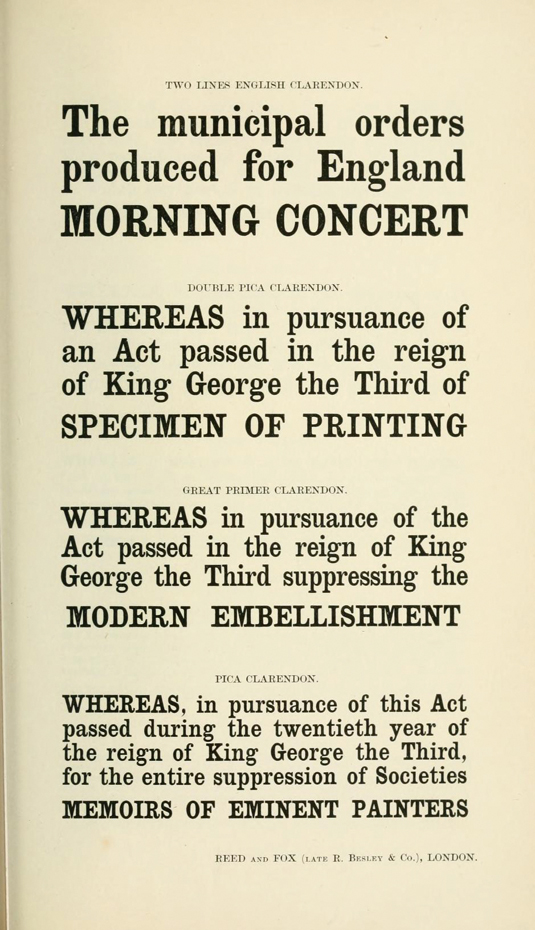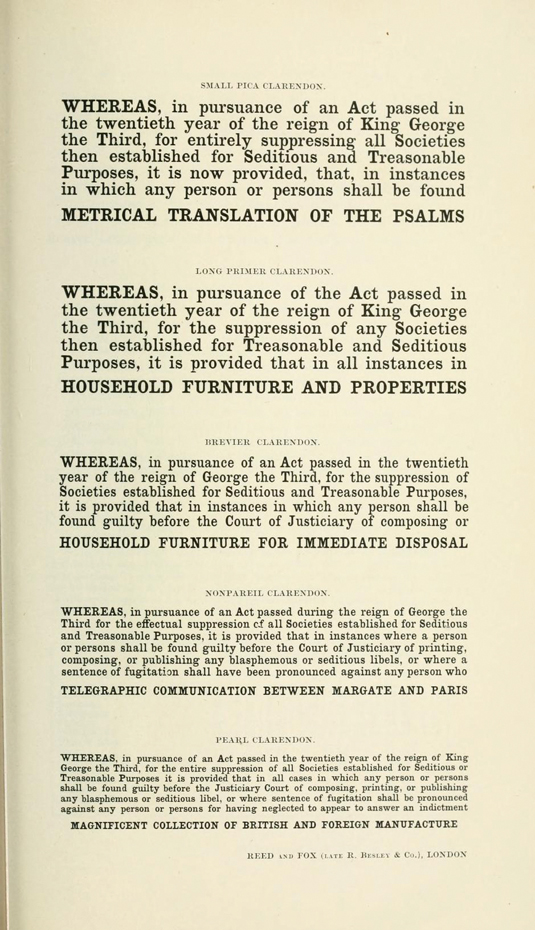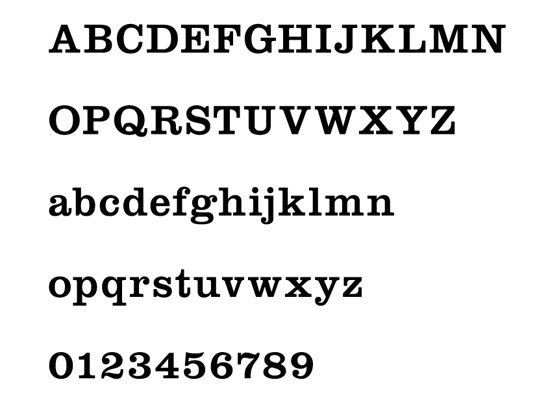
Greatest fonts countdown: 87 – Clarendon
We're counting down the 100 greatest typefaces in existence. Here is number 87...
But without further ado, here is the 87th best typeface…
87. Clarendon
- Benjamin Fox, 1854
The popular slab-serif Clarendon was cut by Benjamin Fox for Robert Beasley at the London Fann Street Foundry. It was released in 1845 and was the first registered typeface. Clarendon’s close affinity with neo-classical Roman type, particularly the newspaper typeface Century, gives it clarity as a text face – and the ball terminals simply add to its readability. In 1953, Hermann Eidenbenz and Edouard Hoffmann designed a Clarendon font family for the Haas Type Foundry in Frankfurt, which is still in use today.